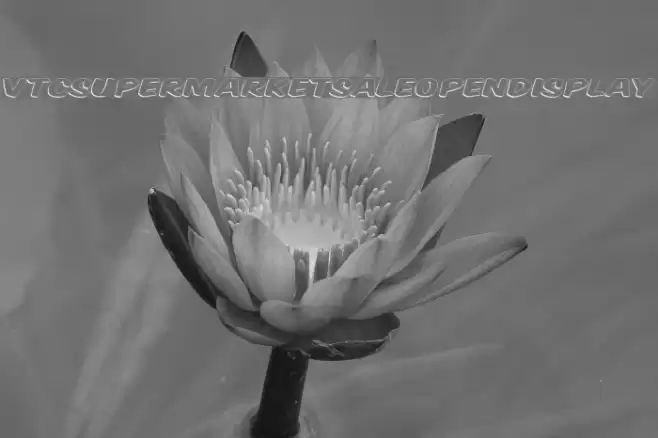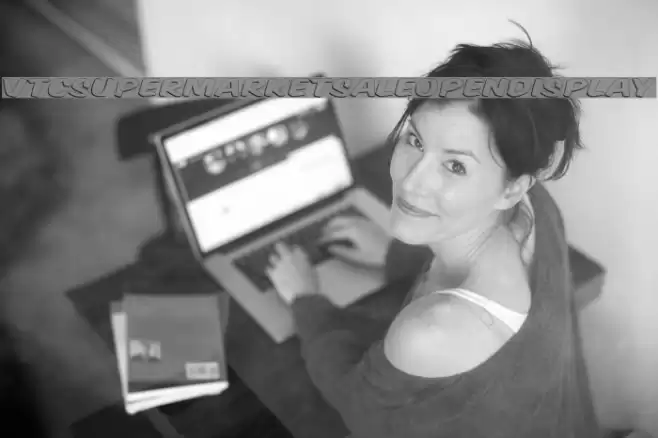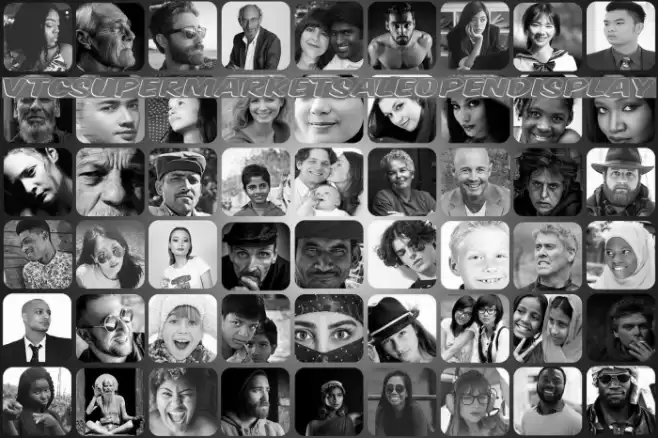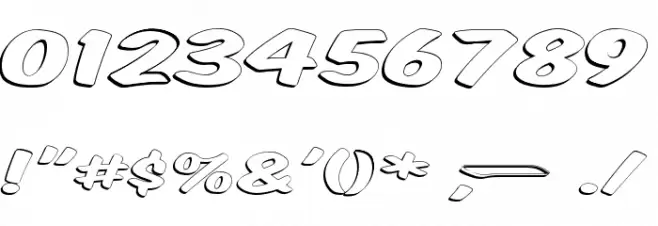
VTCSuperMarketSaleOpenDisplay Font
VTCSuperMarketSaleOpenDisplay Description
This font features a bold, playful style with a three-dimensional effect created by a shadow outline. The characters are uppercase and lowercase, with a consistent thickness that gives them a robust appearance. The design is dynamic and eye-catching, making it suitable for attention-grabbing headlines or promotional materials. The numbers and special characters maintain the same bold style, ensuring a cohesive look across different uses. The font's playful nature is enhanced by its slightly rounded edges, adding a friendly and approachable feel.
Bold, playful font with a 3D shadow effect and rounded edges from Uncategorized fonts.
- Proposed Projects: Ideal for posters, advertisements, children's books, and playful branding.
- Overall Style: Playful, Modern